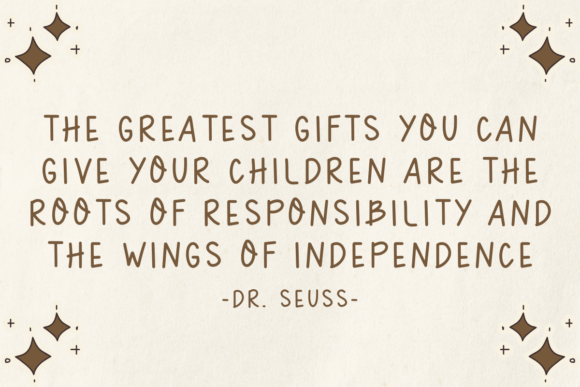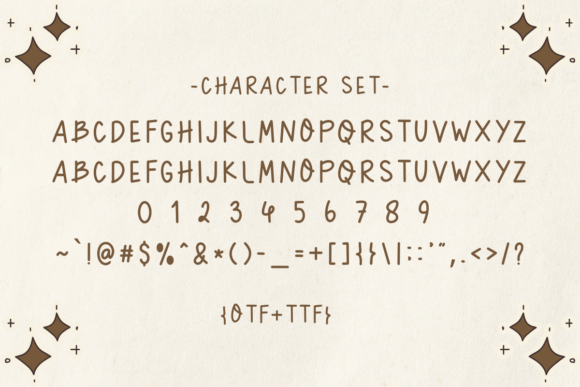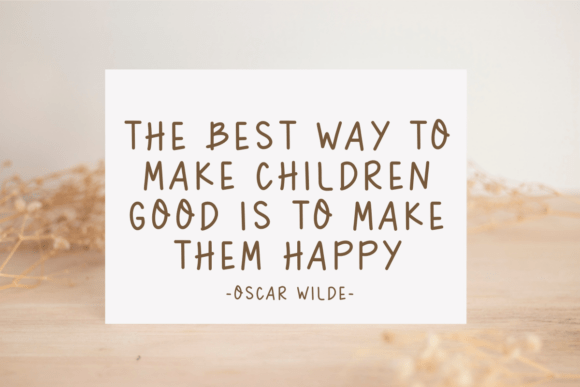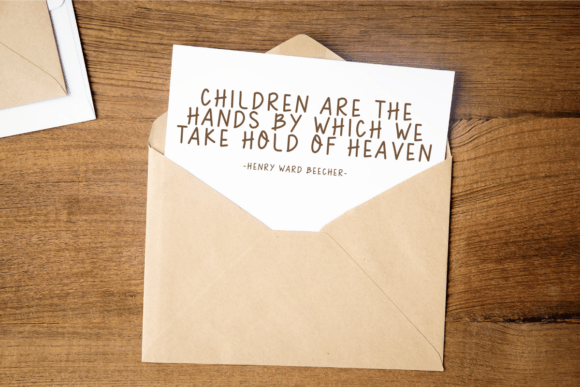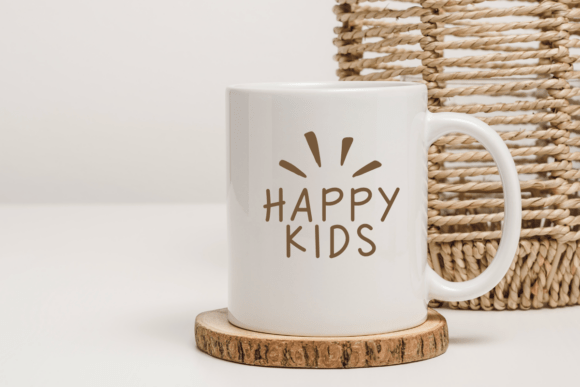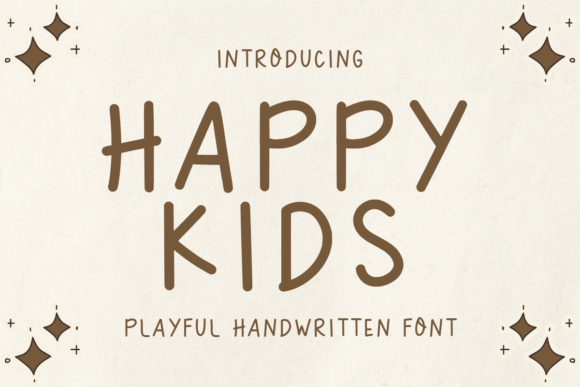
Introducing Happy Kids Font: The Perfect Playful Handwritten Font for Crafters and Designers
Are you a crafter, designer, or maker looking for a font that can add a touch of playfulness and friendliness to your projects? Look no further than Happy Kids Font! This delightful handwritten font is perfect for a wide range of creative applications, from crafts and planners to KDP, stickers, greeting cards, and more.
What Makes Happy Kids Font So Special?
Happy Kids Font is a unique and charming handwritten font that is sure to capture the hearts of crafters, designers, and makers. Its cute and friendly style makes it an ideal choice for anyone looking to add a personal touch to their projects. Whether you’re creating custom stickers, greeting cards, or planners, Happy Kids Font is the perfect choice.
Perfect for Cricut, Sublimation, and DIY Projects
One of the best things about Happy Kids Font is its versatility. It works great with Cricut machines, making it perfect for cutting vinyl, iron-on designs, and other materials. It’s also ideal for sublimation projects, such as customizing mugs, t-shirts, and other products. Additionally, Happy Kids Font is perfect for creative DIY projects, such as scrapbooking, journaling, and card making.
Ideal for Crafters, Designers, and Makers
Happy Kids Font is specifically designed with crafters, designers, and makers in mind. Its playful and friendly style makes it perfect for anyone looking to add a personal touch to their projects. Whether you’re a professional designer or a hobbyist crafter, Happy Kids Font is sure to become a favorite in your collection.
Use Happy Kids Font for a Variety of Projects
The possibilities are endless with Happy Kids Font! Here are just a few ideas to get you started:
- Crafts: Use Happy Kids Font to add a personal touch to your craft projects, such as scrapbooking, card making, and DIY gifts.
- Planners: Add a playful touch to your planners and journals with Happy Kids Font.
- KDP: Use Happy Kids Font to create custom books, journals, and planners for Kindle Direct Publishing.
- Stickers: Create custom stickers with Happy Kids Font for your crafts, planners, and DIY projects.
- Greeting Cards: Use Happy Kids Font to create custom greeting cards for birthdays, holidays, and special occasions.
Why Choose Happy Kids Font?
There are many reasons why Happy Kids Font stands out from other fonts. Here are just a few:
- Unique and charming design: Happy Kids Font has a one-of-a-kind design that’s sure to capture the hearts of crafters, designers, and makers.
- Playful and friendly style: Happy Kids Font has a playful and friendly style that’s perfect for adding a personal touch to your projects.
- Versatile: Happy Kids Font works great with Cricut machines, sublimation projects, and DIY crafts.
- Easily readable: Happy Kids Font is easy to read, making it perfect for use in planners, journals, and other projects where readability is important.
Get Ready to Add a Touch of Happiness to Your Projects!
In conclusion, Happy Kids Font is a playful handwritten font that’s perfect for crafters, designers, and makers. Its cute and friendly style makes it an ideal choice for a wide range of creative applications, from crafts and planners to KDP, stickers, greeting cards, and more. With its versatility, readability, and unique design, Happy Kids Font is sure to become a favorite in your collection. So why wait? Download Happy Kids Font today and start adding a touch of happiness to your projects!